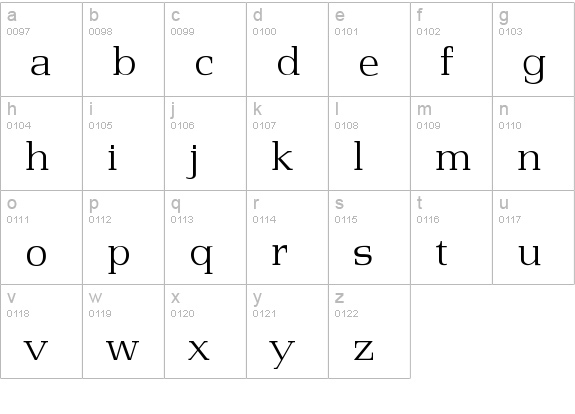
Penthouse-Xlight Font Details
Introducing Penthouse-Xlight, a mesmerizing font that effortlessly combines elegance with modernity. Its delicate and refined design captures attention, making it the perfect choice for any sophisticated project. Penthouse-Xlight exudes an air of luxury, its slender and graceful letterforms creating a sense of exclusivity. The precise lines and gentle curves of this font lend it a timeless quality, ensuring it remains a classic choice for years to come. This font is a true masterpiece, meticulously crafted to enhance readability without compromising on style. Its clean and crisp appearance makes it versatile, suitable for a wide range of applications, from editorial design to branding, packaging, and beyond. What makes Penthouse-Xlight even more remarkable is that it is freely available to download at FontsMarket.com. This means that you can effortlessly elevate your designs without any financial constraints. With Penthouse-Xlight, you have the freedom to create stunning visuals that leave a lasting impression. So whether you are working on a high-end fashion magazine, a luxurious brand identity, or an elegant wedding invitation, Penthouse-Xlight is the font that will effortlessly elevate your project to new heights. Its refined aesthetic and its availability for free download at FontsMarket.com make it the perfect choice for discerning designers who seek both beauty and practicality in their work. Embrace the elegance of Penthouse-Xlight and let it transform your designs into timeless works of art.